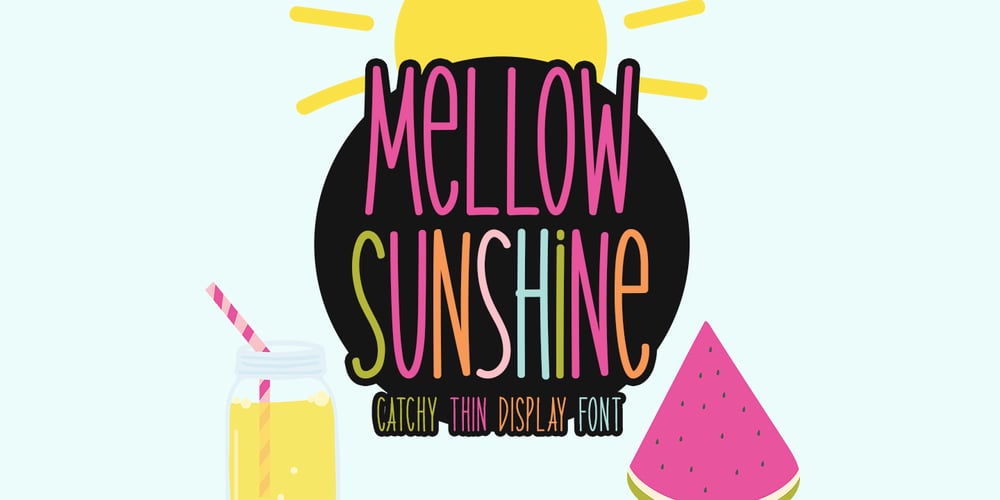
Mellow Sunshine Font Family was designed by Md Shohail Bhuian and published by Seemly Fonts. Mellow Sunshine contains 1 styles and family package options. Mellow Sunshine is an incomparable display font. It can easily be matched to an incredibly large set of projects, so add it to your creative ideas and notice how it makes them stand out!